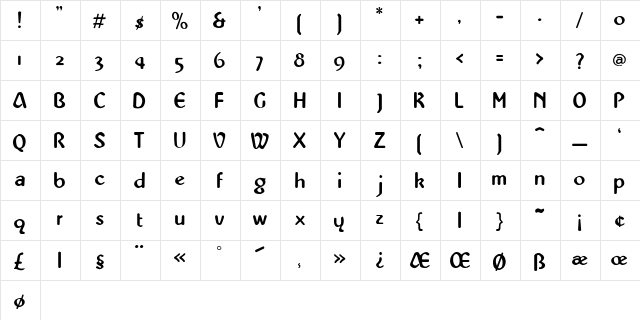
Cityhall Med Regular
Design Context for Cityhall Med Typeface
Cityhall Med is a composed and adaptable typeface that performs quietly and consistently across a wide range of design contexts.